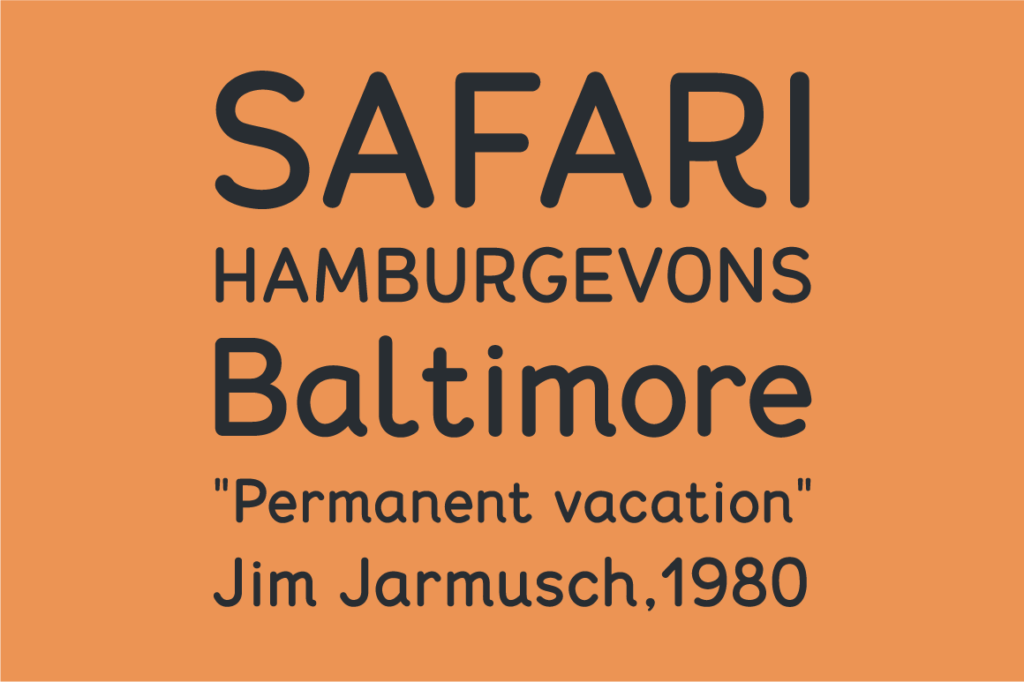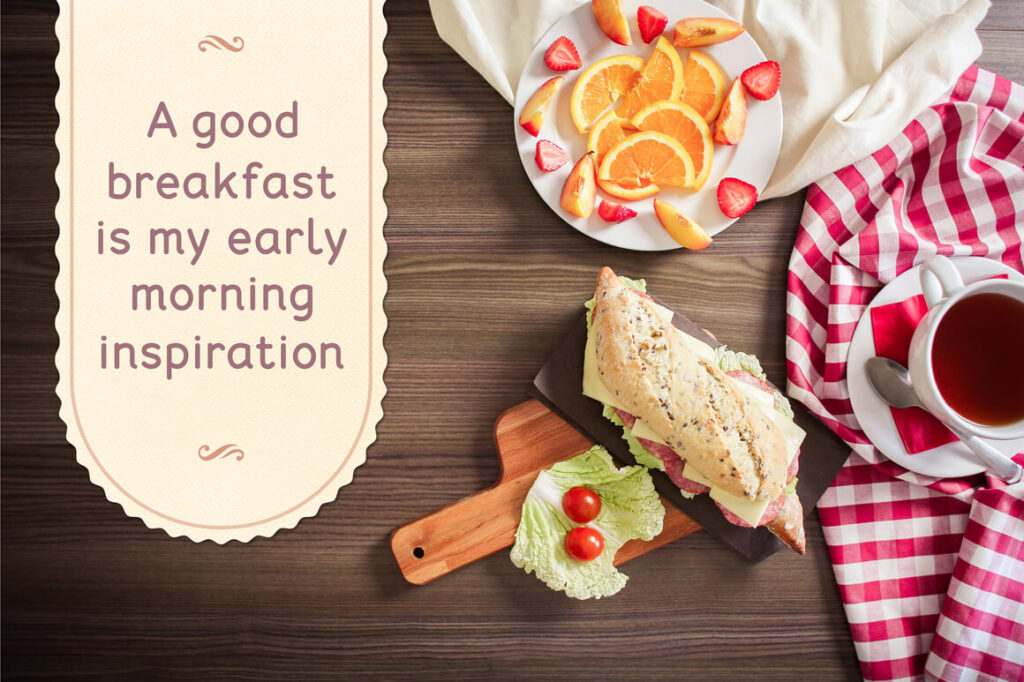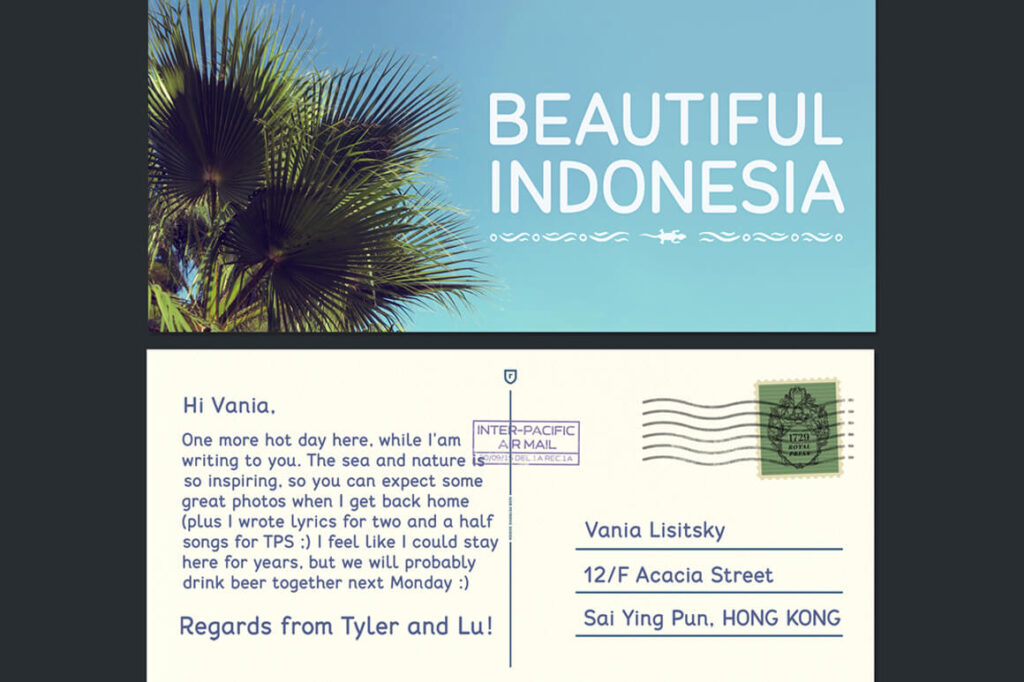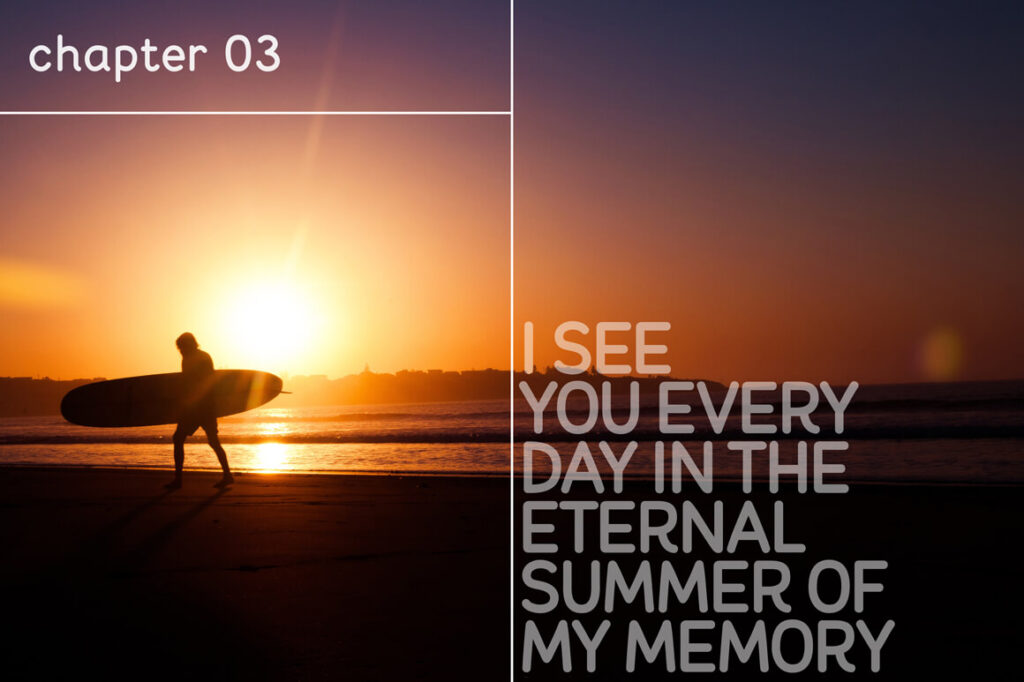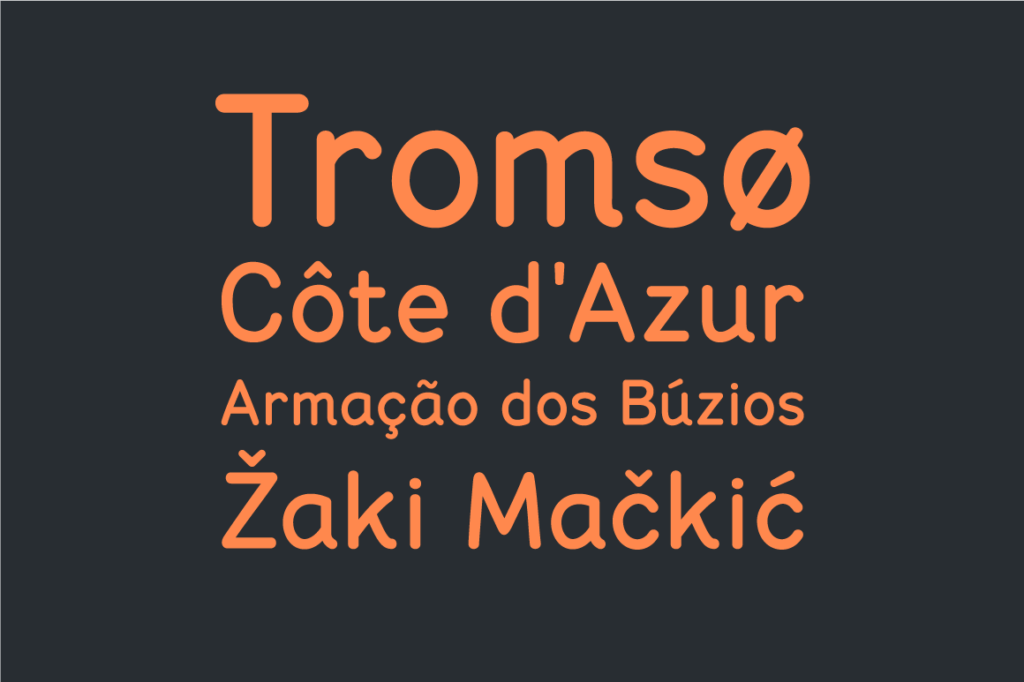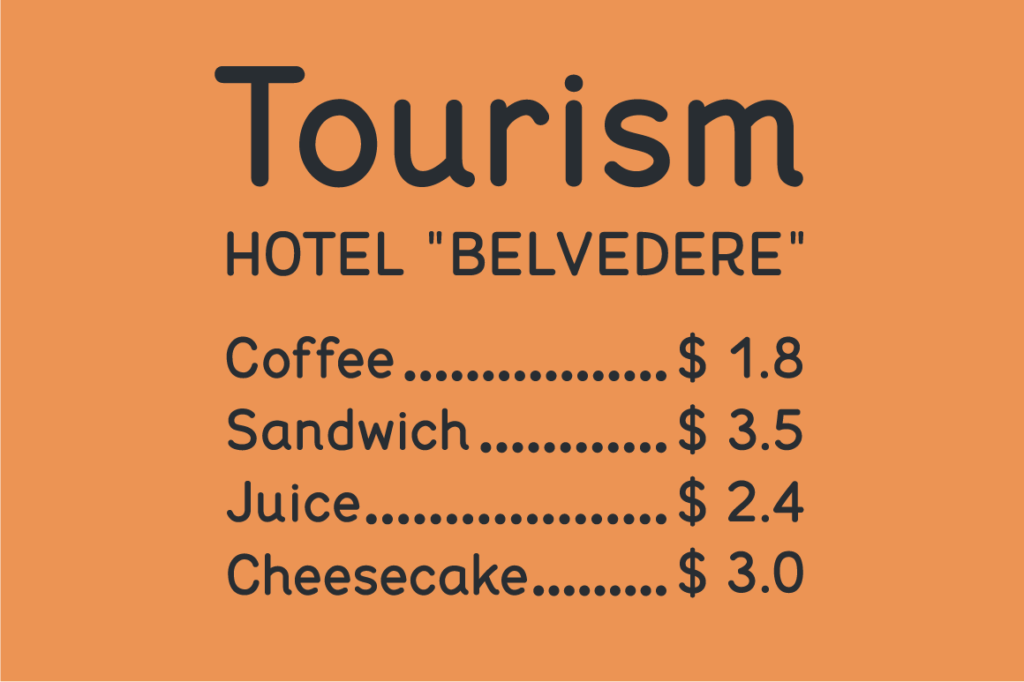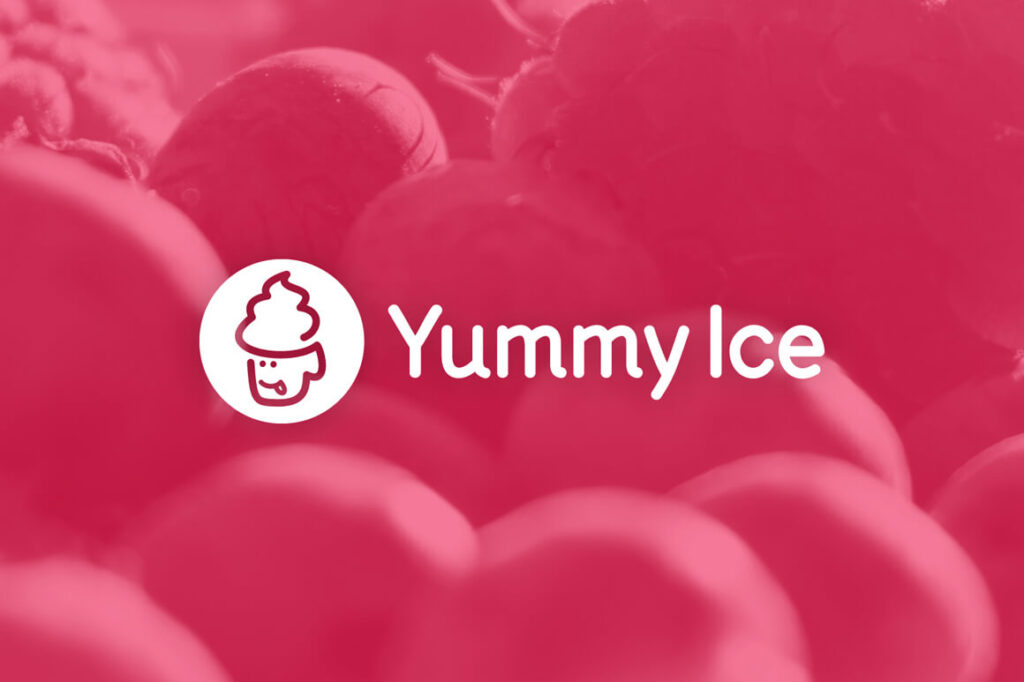
POSTCARD
ROUND PEN HANDWRITTEN FONT (1 STYLE)
Postcard is a typeface with round corners and a sophisticated handwritten touch that brings charm to your artwork while retaining a good design taste. It is natural and sincere, not childish, making it a great alternative for Comic Sans.
It works perfectly for projects where you would like to convey emotion, warmth, adventure, or personal touch. From wedding invitations and inspirational quotes to logos and handwriting simulation on letters or notebooks. Add the Postcard to your font arsenal, and be ready for inspiration!
SOPHISTICATED DESIGN
The key goal of Postcard font is to bring personality to projects which should keep legibility and elegance. Calm and beautiful handwriting without exaggerated characters or cheesy details.
VERSATILE
Because of its double (regular/handwritten) nature, the font has proven to be successfully used in a wide range of project types (logos, book design, wedding invitations, and many more)
UNIQUENESS
The font is based on the author’s personal handwriting, so it’s absolutely unique.
- 200+ glyphs cover all usual Latin-based languages. Uppercase, lowercase, numbers, wide set of punctuation and additional characters.